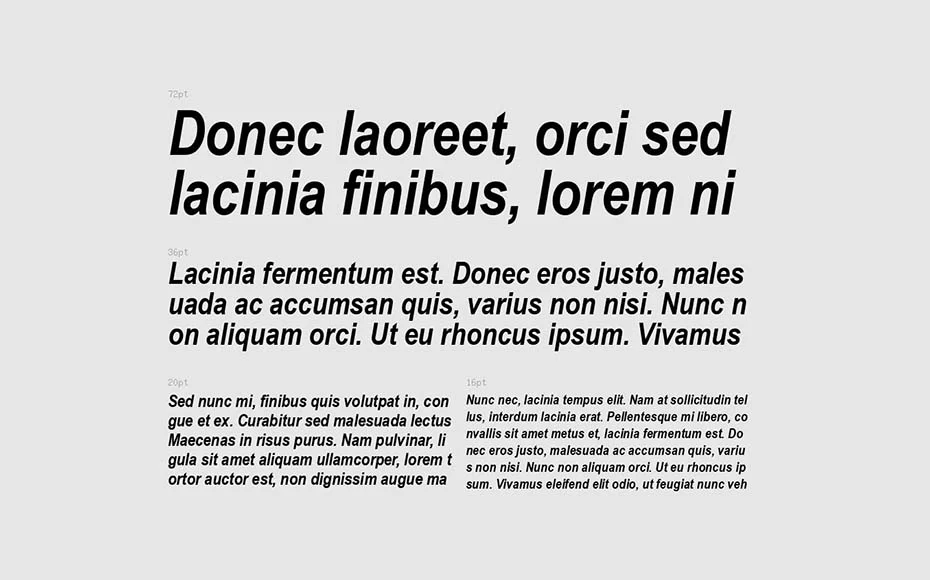
Jjba font is a logo font that we have seen for the first time in a Japanese manga series the JoJo’s Bizarre Adventure. So, this font gets amazing attraction just because of this manga series.
It has an amazing texture that is created with bold strokes just for adding uniqueness to the design where this typeface will apply. The best part of it, you can easily use it with others.
It has a bold texture with baselines and padding. All letters are created with clean strokes along with sans serif corners. So, it can easily be useable for professional work.
This elegant typeface comprises a solid and thick texture which is perfectly used for bold headings. So, it can easily be useable with Homenaje Font and Tripleta Font.
Font Name:Arial Narrow Bold Italic
Style:Logo, Sans Serif, Typeface
Font Designer:Monotype Corporation
When you look at its texture then you find that the heights of all letters are a little bit higher but the widths are equal to the standard size. While the space between letters is equal to the standard size.
Due to its clean and elegant look, you can use it for cards printing, game graphics, product designs, special events, logos, development projects, and several other places same as Fallout Font.
The Jjba font has supported several languages all around the world including Turkish, Italian, and German. So, you can easily create designs in other languages as well.